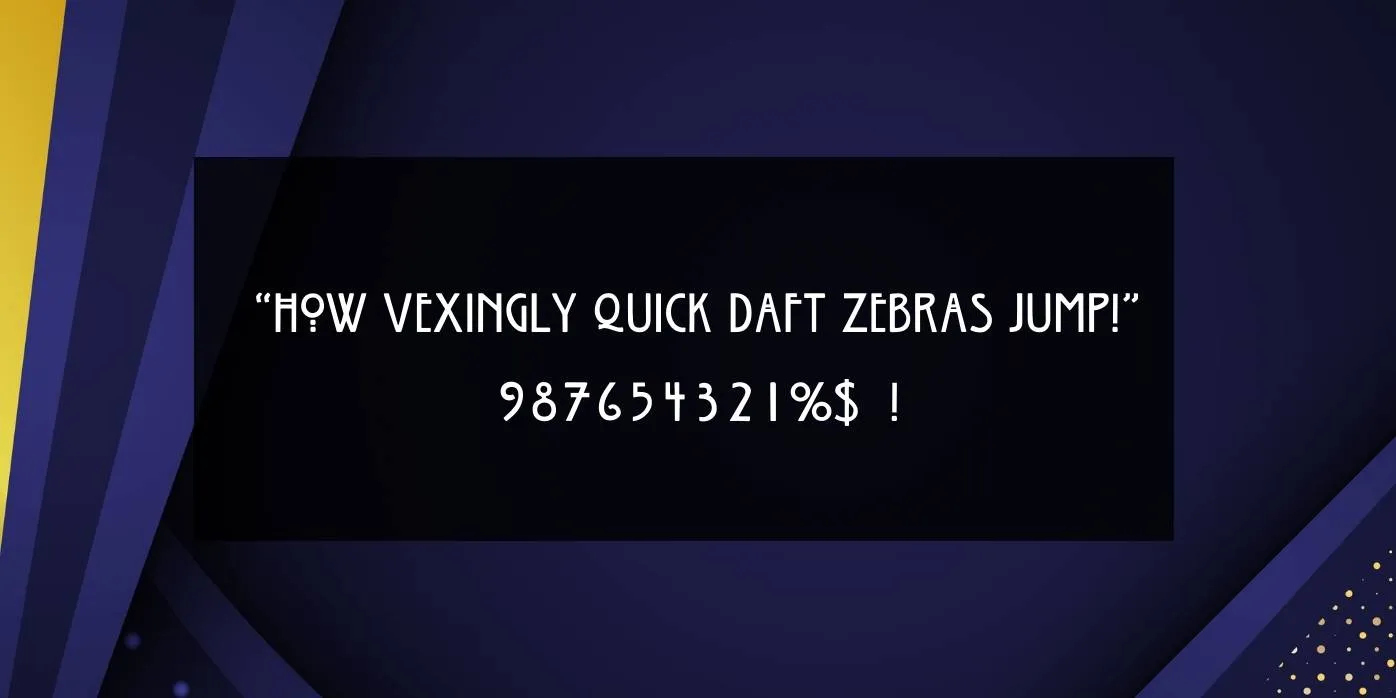
Willow Font
Today, we introduce a stylish font family named Willow Font.  Joy Redick is a very famous designer who took the charge of its creation. It belongs to the display typeface.  The rounded corners of the characters give it a unique and charming look. You can use this font for personal as well as commercial purposes. This stylish font has two different styles named Regular and Rough.
Both styles contain 438 glyphs. You can easily access these glyphs via software like Adobe Photoshop, Illustrator, InDesign, etc. You can use lakers font which has the same style and characters as this one. This typeface has keen and Bold features.